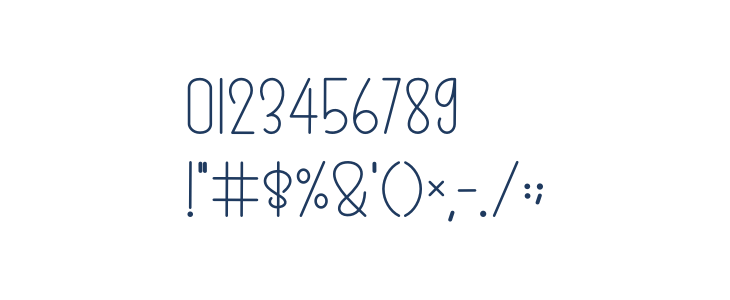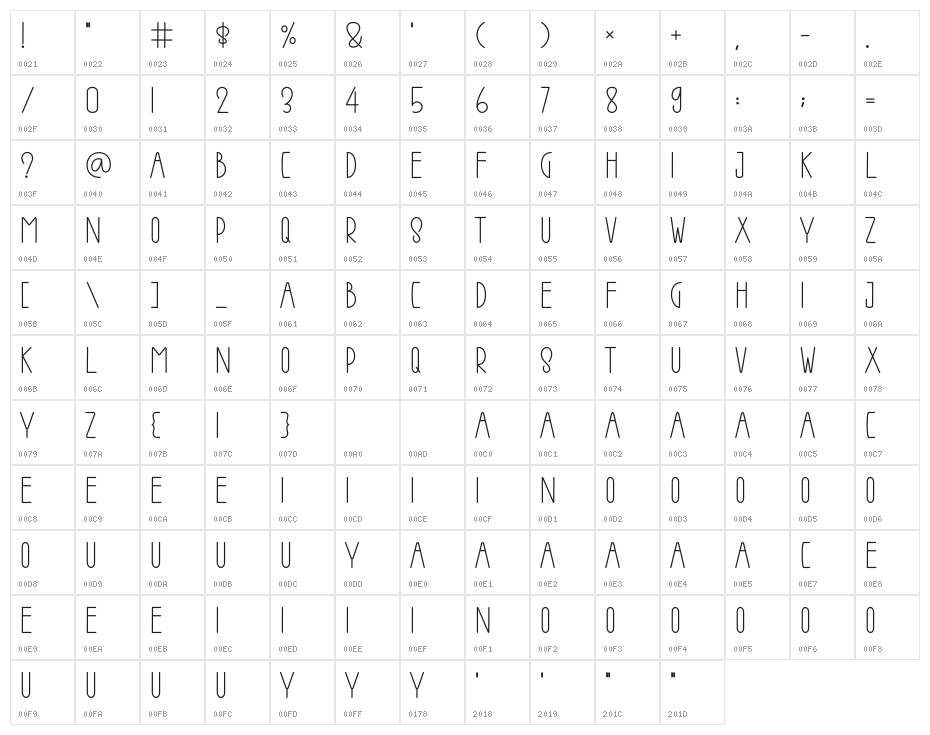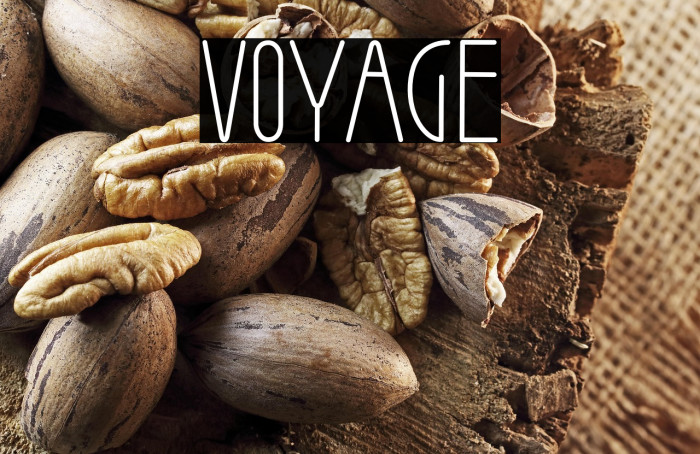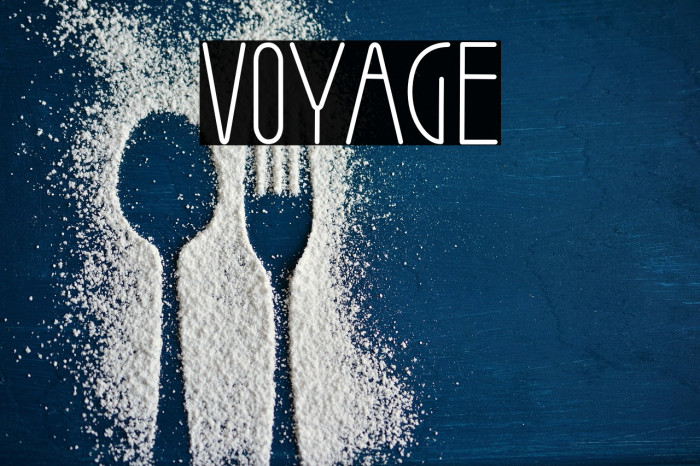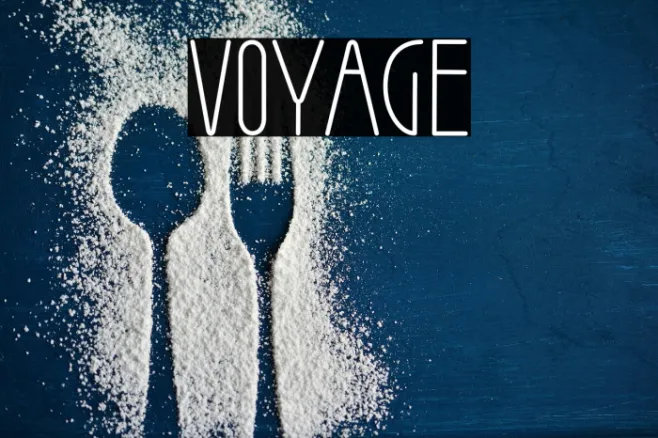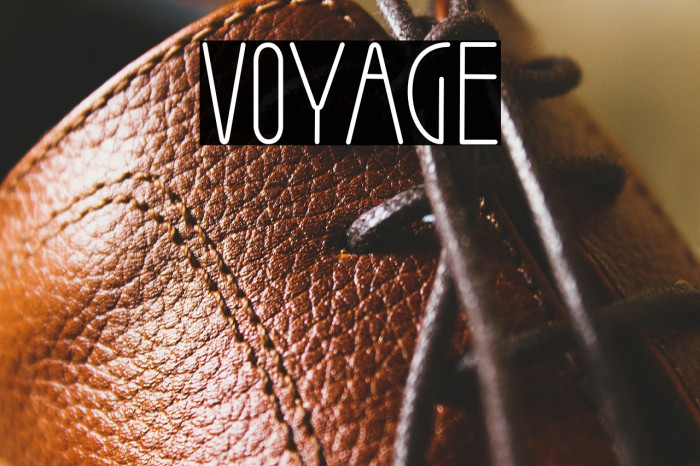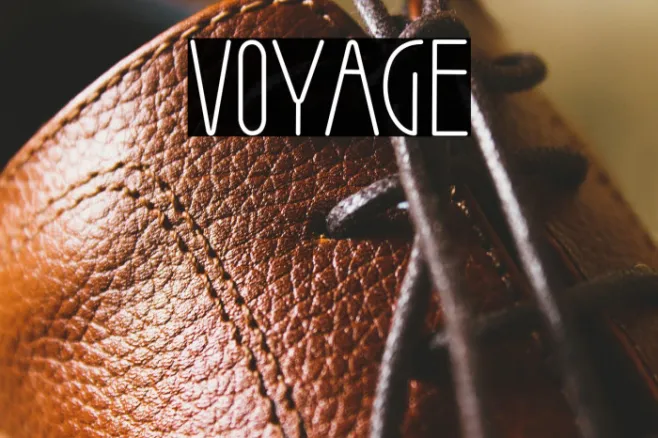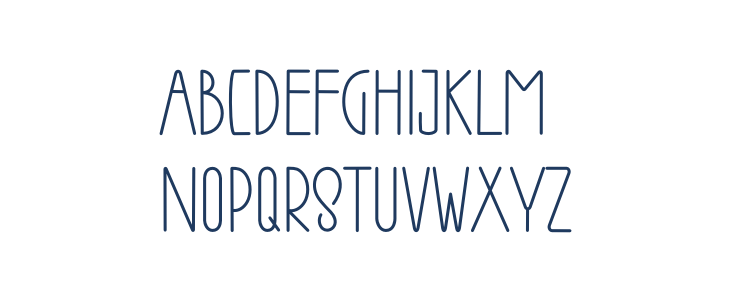
Voyage Font
Voyage Description
This font features a sleek and modern design with elongated, narrow characters that convey a sense of elegance and sophistication. The letters are uniformly thin, with a consistent stroke width that gives the font a clean and minimalist appearance. The uppercase and lowercase letters maintain a cohesive style, with smooth curves and sharp angles that add a touch of uniqueness. The numerals are equally refined, matching the overall aesthetic of the alphabet. Special characters are thoughtfully designed to complement the font's streamlined look, making it versatile for various design applications.